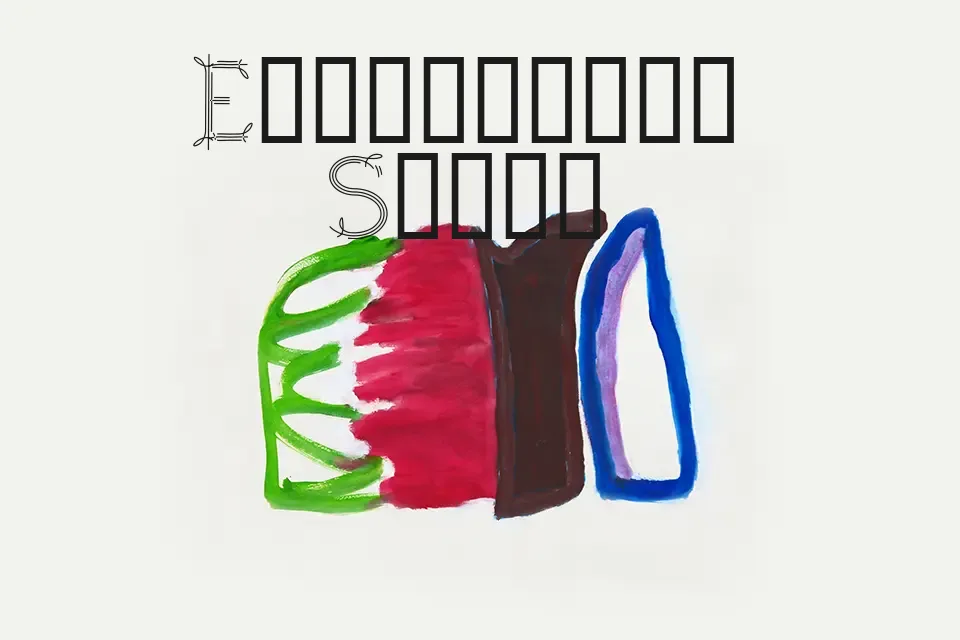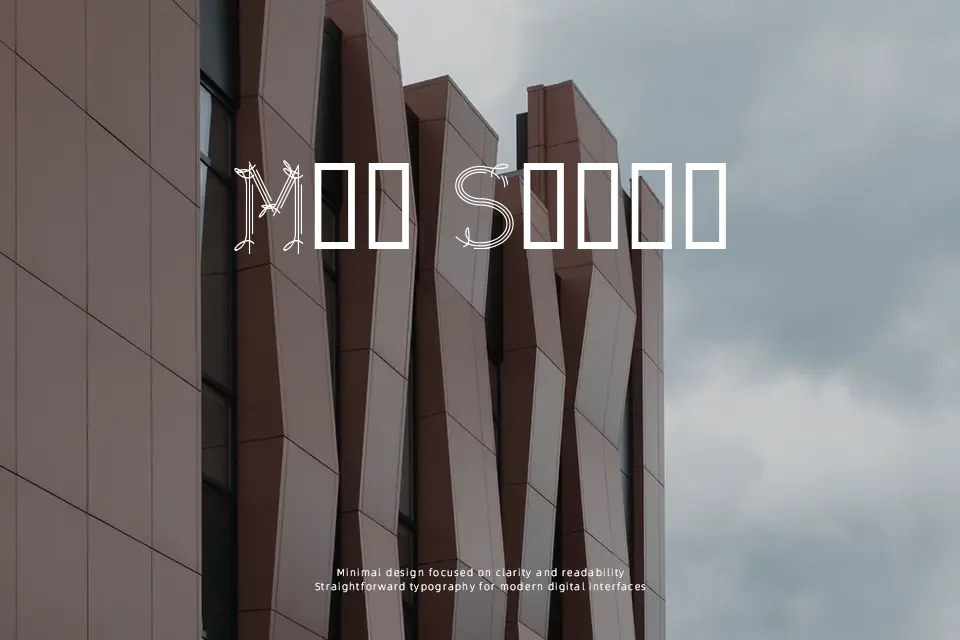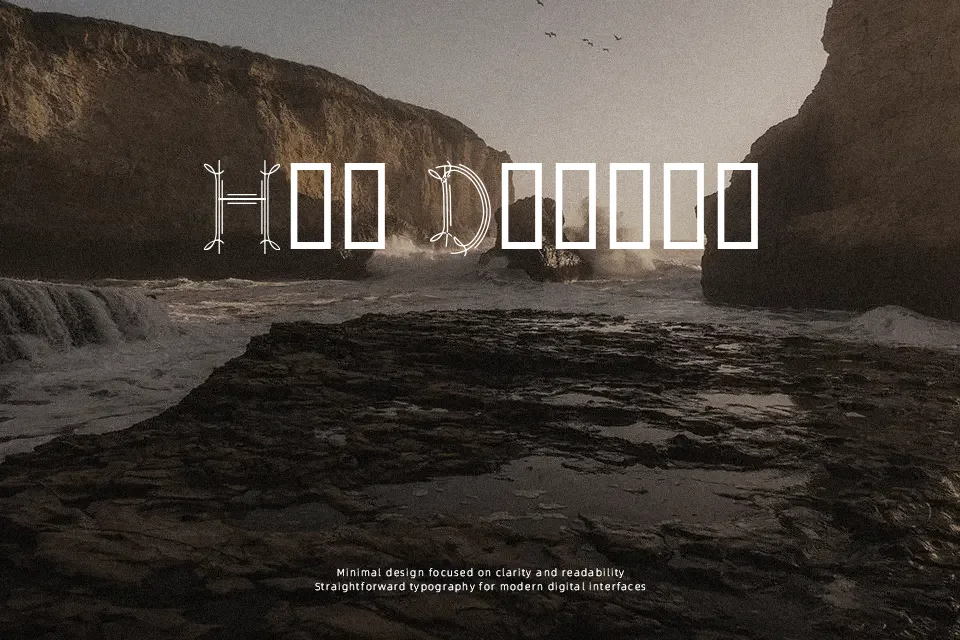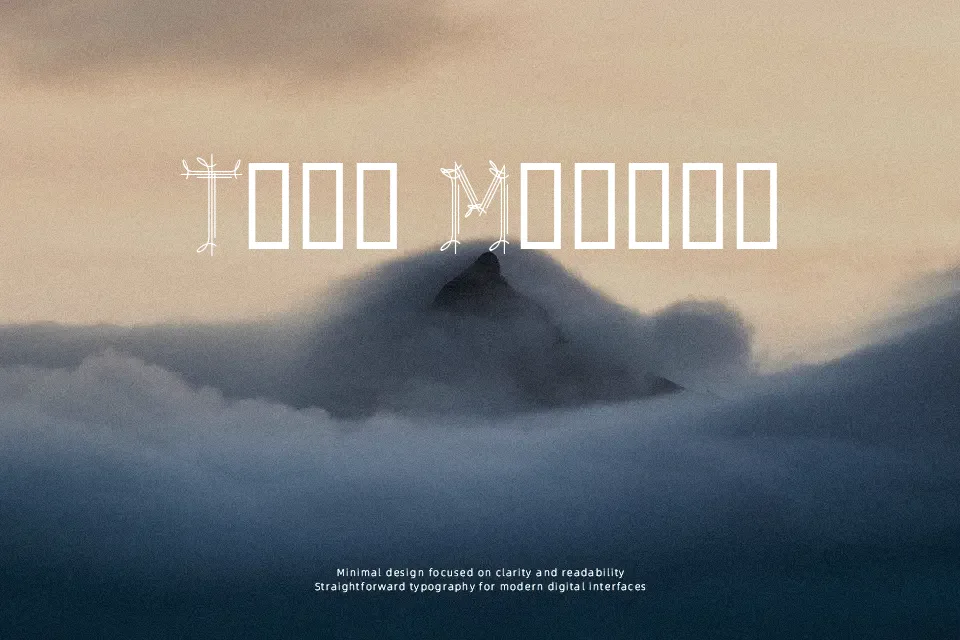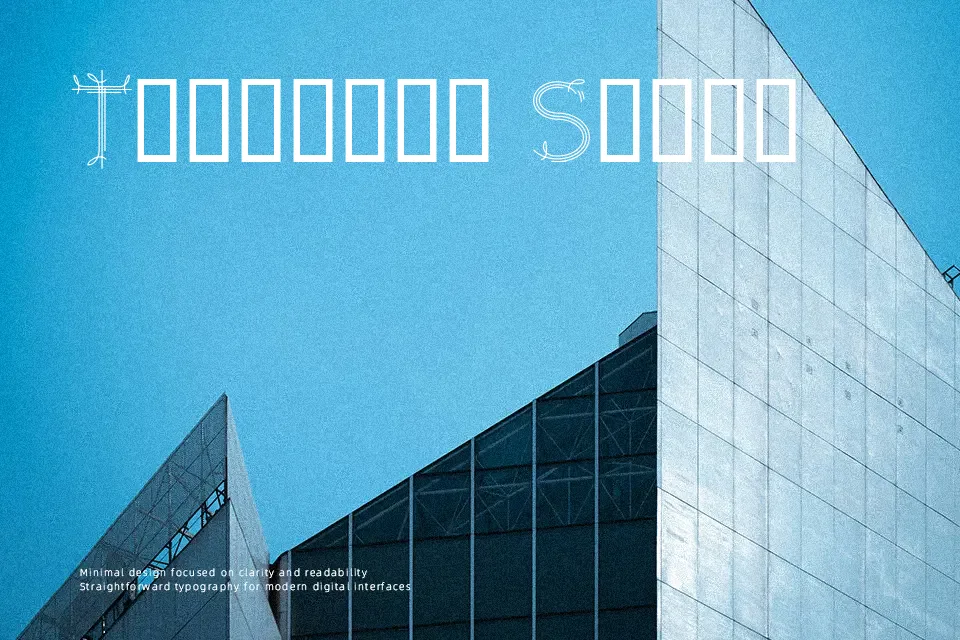
CF Dwarf Font
CF Dwarf Font introduces an intricate decorative design featuring bold structural stems accented with rustic, branch-inspired spurs and uneven botanical contours. The uniform stroke weight establishes steady consistency across the character set, while the moderately wide proportions give each glyph an earthy, grounded presence. Generous character spacing prevents the external decorative thorns from colliding in larger headline layouts. Readability remains sharp at prominent display scales, making the design effective for mythical adventure branding, tabletop game packaging, and themed promotional materials. However, the complex perimeter flourishes quickly degrade legibility in dense paragraph text or compact mobile interface captions. The letterforms excel when deployed selectively as prominent focal points.
Best For: fantasy game packaging, adventure book covers, rustic apparel branding, event poster headlines
Not Ideal For: continuous body text, mobile interface labels, corporate annual reports, dense tabular data
Perfect for gaming, headline, and kids, with a artistic and decorative style.